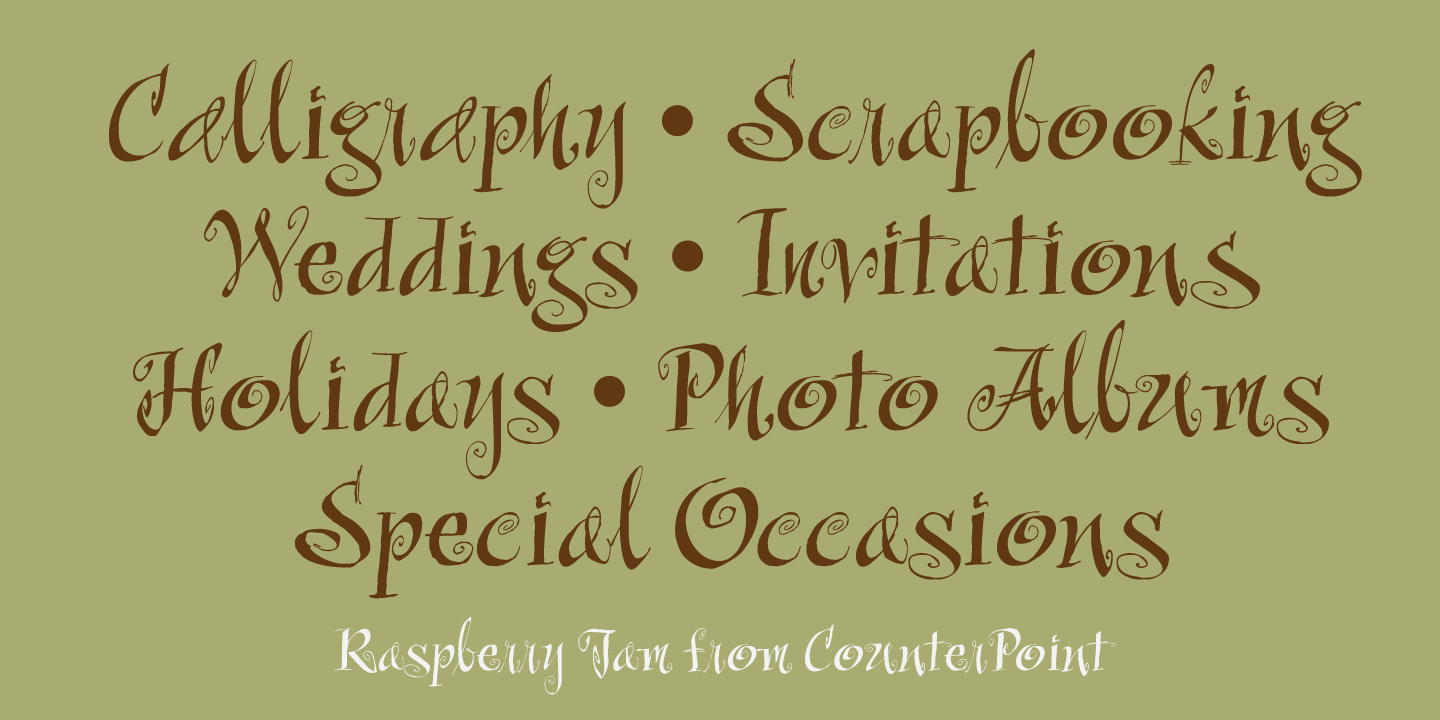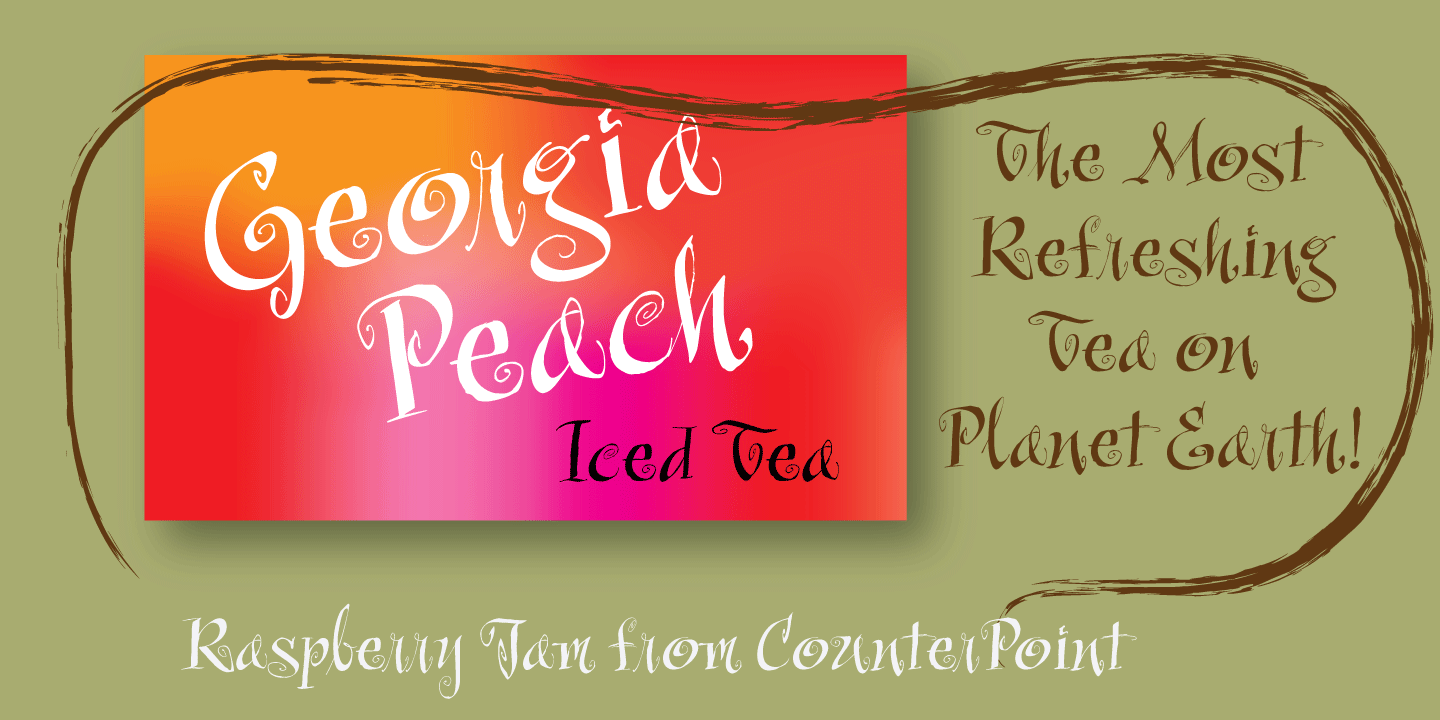
About Raspberry Jam
A whimsical and fun calligraphy style font that is perfect for informal and fun occasions. The design was inspired by a series of scrapbooking style fonts that I have been exploring over the past couple of years. Inspired by a hand lettered sample in…